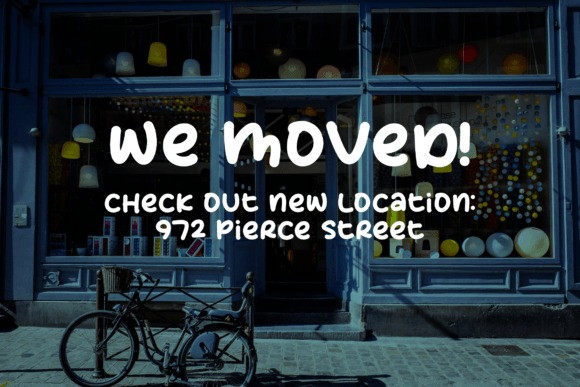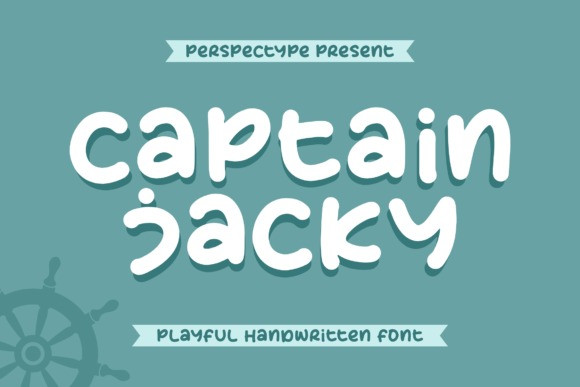
Captain Jacky Font
Captain Jacky – Playful Handwritten Font suitable for any projects such as logos, branding projects, homeware designs, product packaging, mugs, quotes, posters, shopping bags, t-shirts, book covers, name cards, invitation cards, greeting cards, labels, photography, watermark, special events, and all your other lovely projects that need a beautiful script taste.